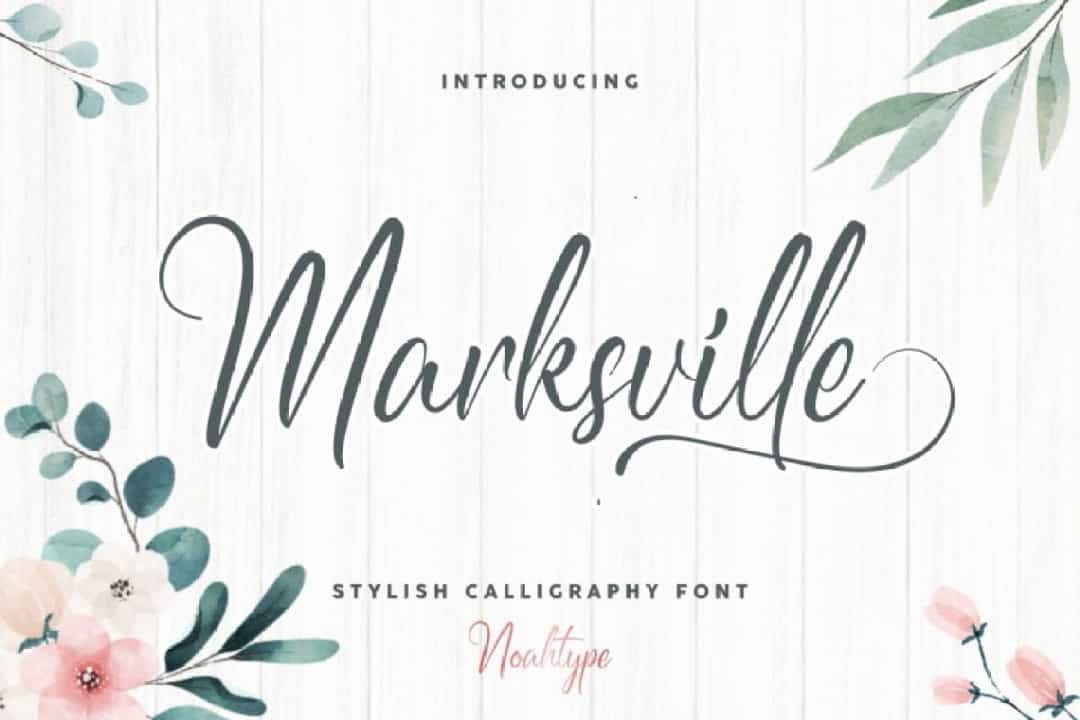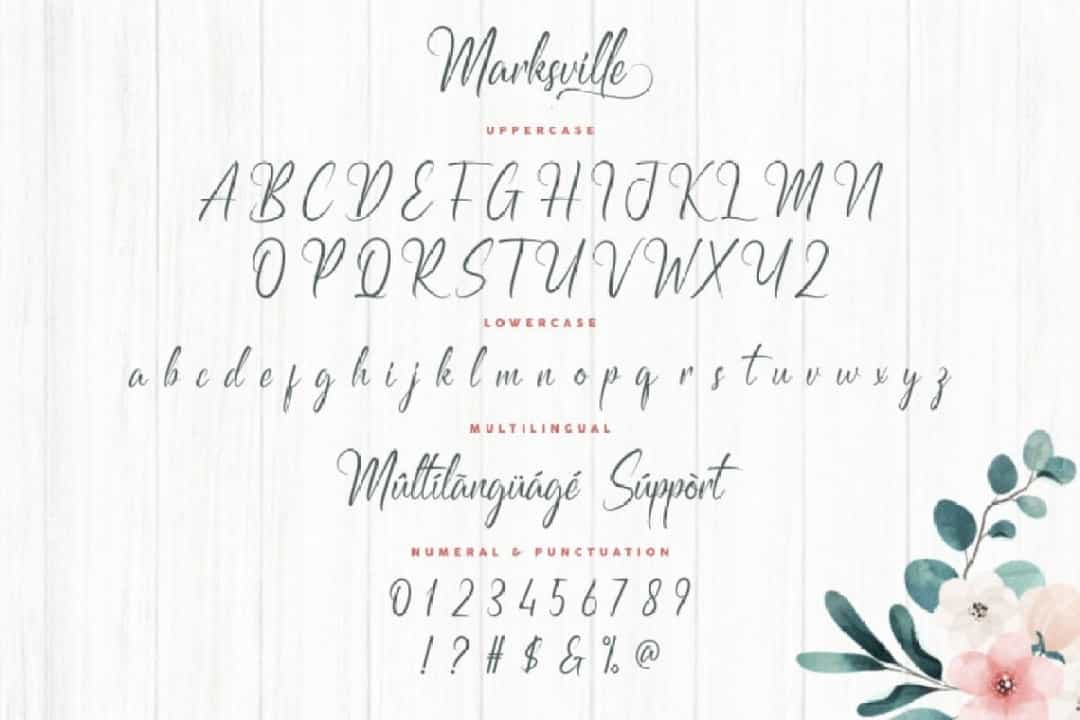
Marksville is an elegant calligraphy font with modern and elegant character, designed meticulously from scratch, appearing like real handwritten script. Each letter of this font was chosen carefully so it would create the ideal blend and balance on every character. When creating fonts we aim to achieve free flowing results which give the impression of natural use later.